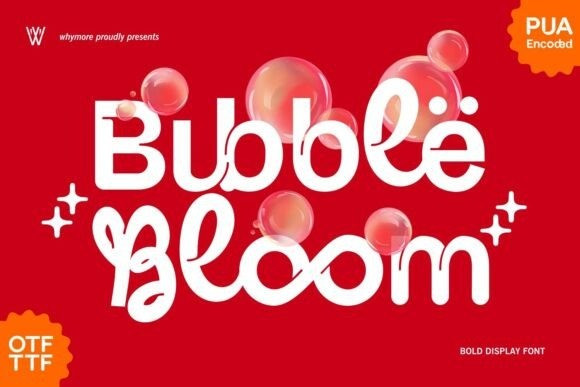
Bubble Bloom Font Duo
Bubble Bloom Font Duo is a bubbly and joyful font that will add a splash of fun to all your creative projects! With its rounded, playful letterforms, this font is perfect for kids’ themes, party invitations, product packaging, stickers, and social media posts.